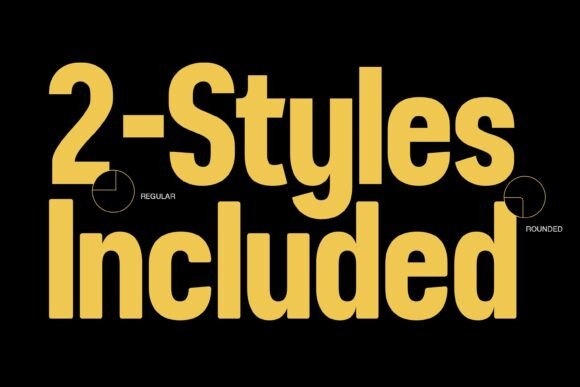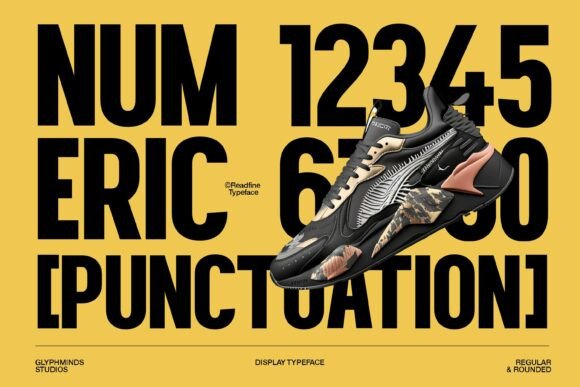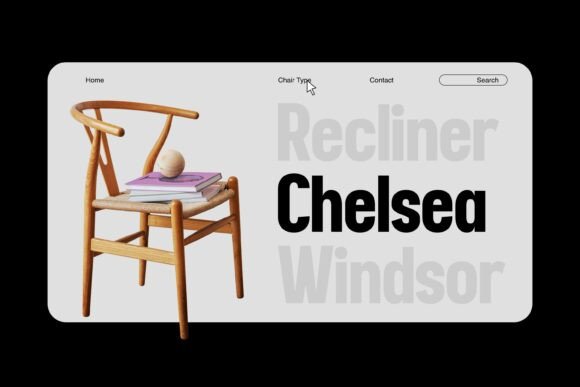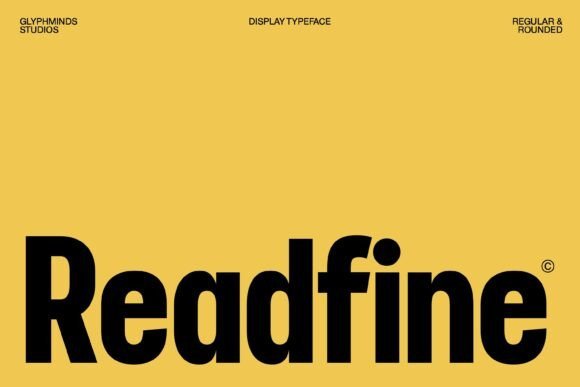
Introduction to Readfine Font
Readfine is a bold and modern display typeface designed to make a statement.
With its clean lines and distinct shapes, Readfine brings a touch of sophistication and flair to any project Perfect for logos, posters, headlines, and branding, this typeface adds a striking visual appeal that stands out in both print and digital media.
Key Features of Readfine Font